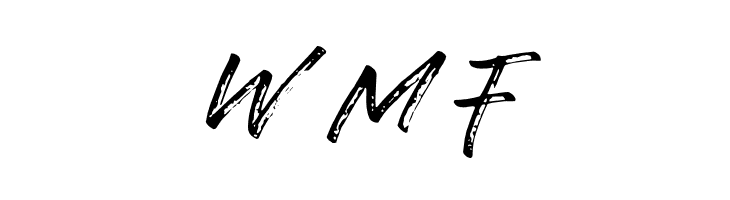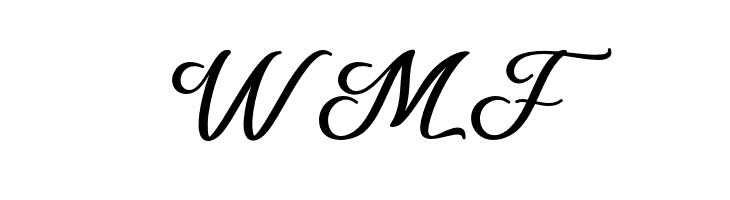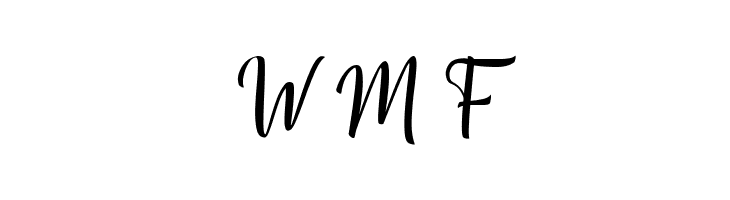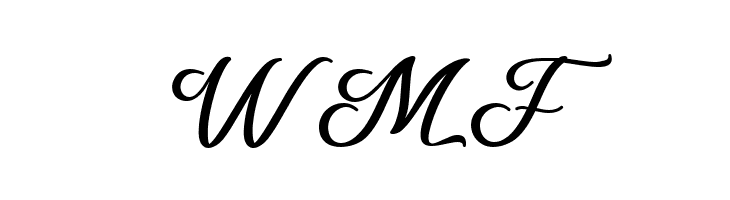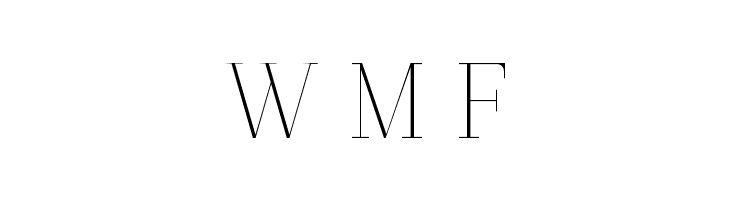
A refined and elegant typeface with high contrast and elongated letterforms.
A playful, handwritten font with fluid, slightly irregular strokes.
An elegant, flowing script font with smooth, cursive strokes.
A bold, flowing script font with a handwritten appearance.
A flowing, cursive font with elegant, connected characters and subtle flourishes.
A bold, decorative font with horizontal stripes and a modern flair.
A textured, hand-drawn font with a dynamic brush-like style.
An elegant, flowing script font with a classic and sophisticated style.
An elegant script font with flowing, cursive lines and a sophisticated style.
A bold, distressed font with a rugged, vintage appearance.